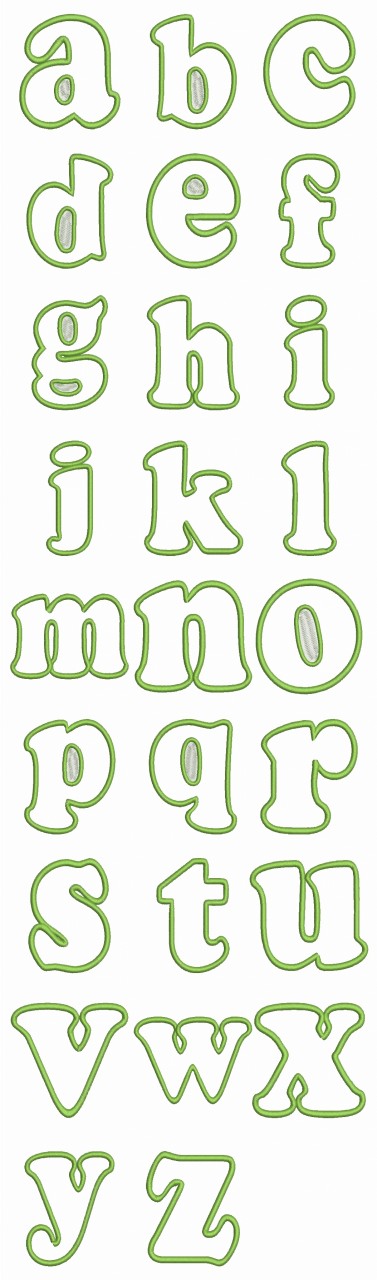
No 91 Lowercase Applique Font Machine Embroidery Designs 4 inch high
This set contains 26 lowercase letters:
26 Lowercase Letters – all are 3.8" high except a few that are 3.8" wide [m, n, and w]
NOT intended to be used to spell names - letters are sized individually to fit in a 4x4 hoop [see picture below for more details]
No holes to cut out - instead there's a dense satin fill so you can use thread to match what you're stitching on. For instance, if you're stitching on a while sweatshirt, you can use white thread so it looks like there is a hole.
Designed for 1 Letter Monograms